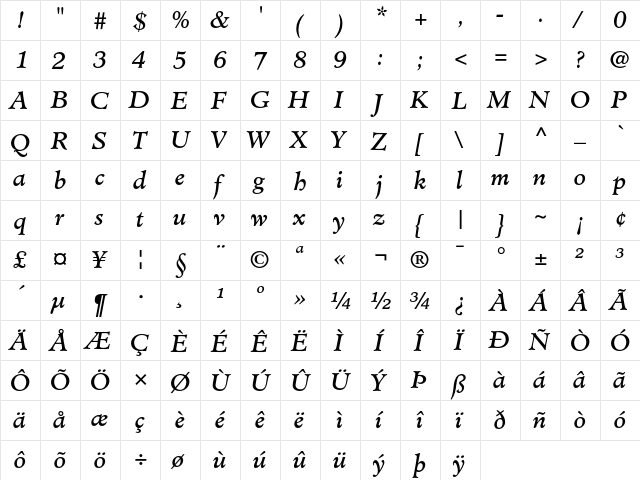
Minister Book Italic
Design Context for Minister Typeface
Minister takes a measured approach to typography — its balanced proportions and neutral character make it a reliable workhorse for both digital and print work. Its italic angle brings a sense of urgency and motion to the letterforms.
Pro Tip: Try Minister for annotation and caption copy alongside an upright companion — the contrast in angle creates a dynamic but ordered typographic system.